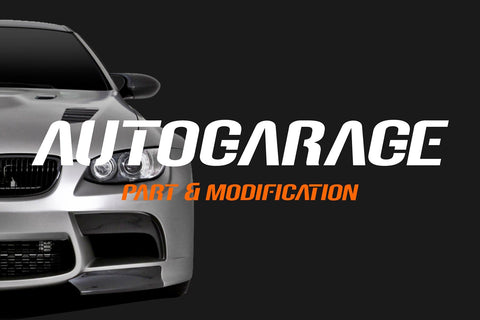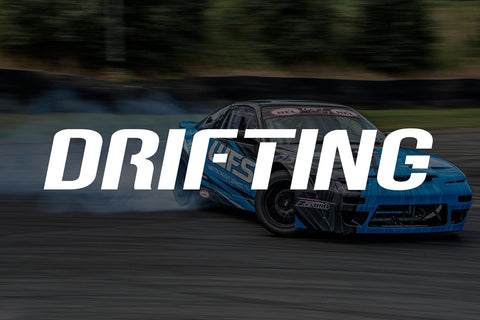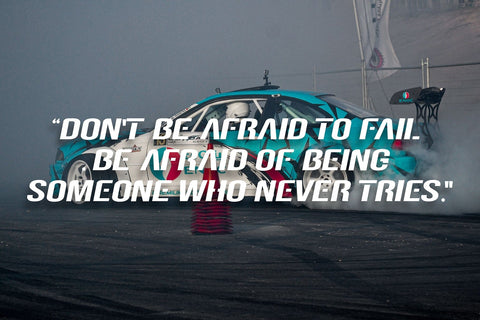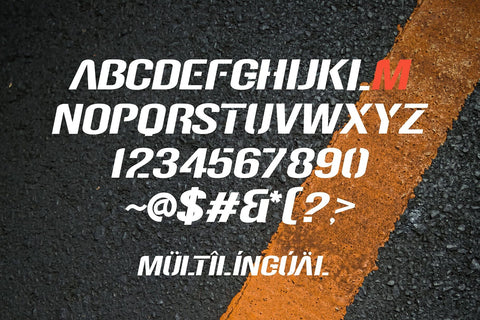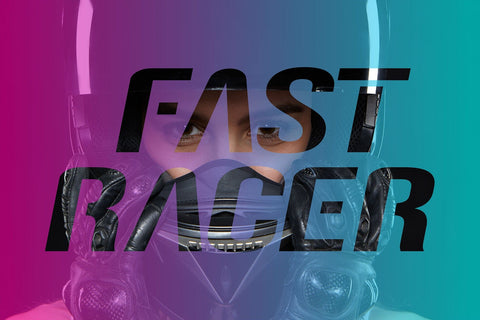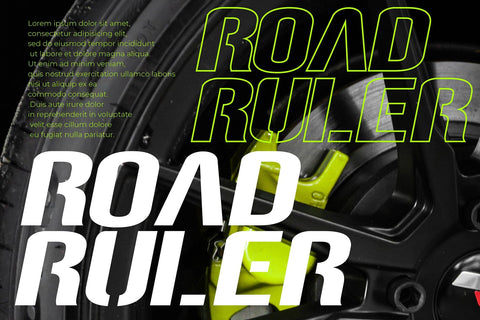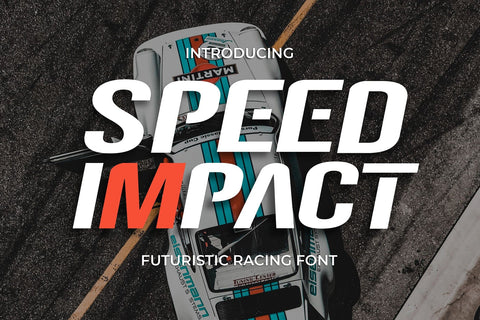
Speed Impact - Futuristic Racing Font
"Speed Impact " is a display font with a sporty and futuristic theme, perfect for design projects such as sports jerseys, athletic shoes, helmets, and other sports-related products. With its dynamic appearance, this font brings a sense of energy and movement to your designs. The clean lines and modern feel of "Speed Impact " make it an excellent choice for projects that require a sleek and contemporary look. Whether you're designing for a sports team or creating an athletic product, "Speed Impact" will help you create a strong and memorable brand identity that embodies the spirit of sports and the future.